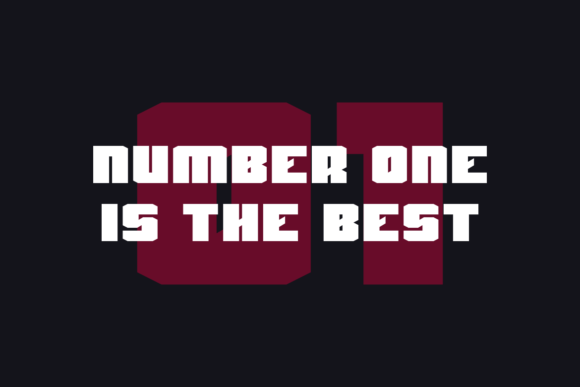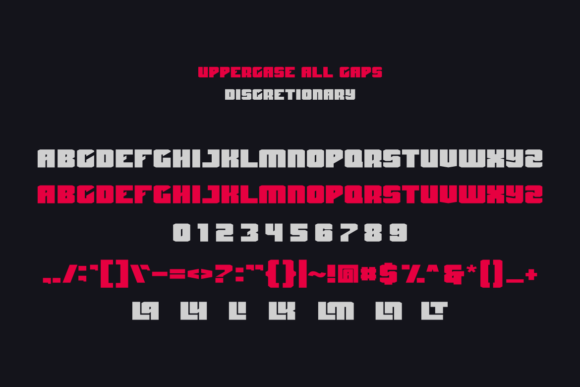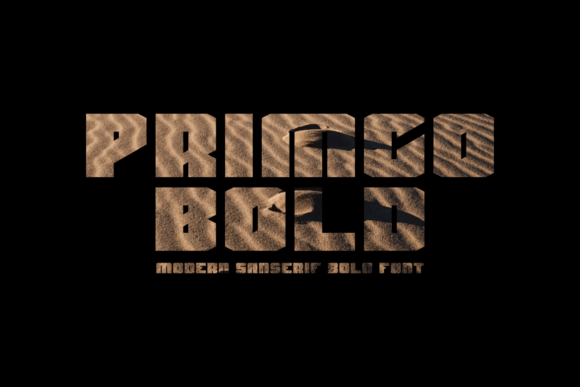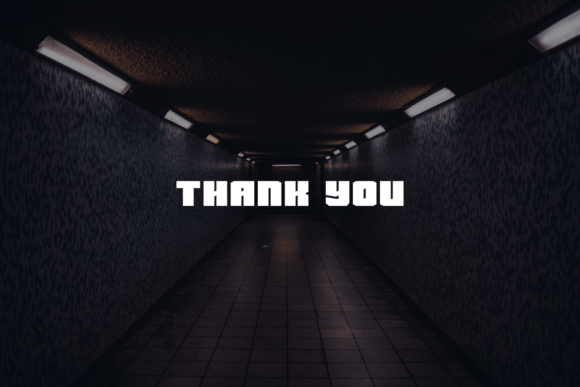
Introduction to Primco Bold Font
Imagine you’re working on a creative project, and you need to grab the attention of your audience. You want your message to stand out, to make a statement. That’s where Primco Bold Font comes in – a strong and chunky display font with big, blocky letters that’s perfect for making a bold statement.
As a designer, you’re always on the lookout for high-quality design resources that can elevate your work. And with Primco Bold Font, you’ve got a valuable tool at your fingertips. This free download is ideal for any creative project where you need to make a big impact, and with its transparent background, you can easily overlay it on any image or background.
Whether you’re designing a logo, a billboard, or a social media campaign, Primco Bold Font is a game-changer. Its solid, blocky letters are guaranteed to grab attention and make your message unforgettable. So why not give it a try and see the difference it can make in your next design project?
Key Features of Primco Bold Font
- High-quality font design with a unique, modern style, perfect for creative projects.
- Primco Bold Font features a transparent background, allowing for effortless customization and blending with any design.
- Optimized for high-resolution displays, with a resolution of 300 DPI, ensuring crisp and clear text in your design project.
- Designed to work well with a variety of design elements, making it an ideal choice for creative professionals and hobbyists alike.
- Perfect for use in digital and print media, including logos, branding, and marketing materials.
Honest Review: Primco Bold Font
I recently stumbled upon the Primco Bold Font and I must say, it’s been a game-changer for my design projects. As a designer, I’m always on the lookout for high-quality fonts that can elevate my creative work.
- ✨ High-quality design: The Primco Bold Font is incredibly well-designed, with clean lines and a professional look that’s perfect for any project.
- ✨ Transparent background: The font’s transparent background makes it easy to use in designs with complex backgrounds or textures.
- ⚠️ Limited character set: The font only includes a limited character set, which may not be suitable for projects that require a wide range of characters.
- ⚠️ Not ideal for small text: The font can be a bit too bold for small text, which may make it difficult to read.
Overall, I’m impressed with the Primco Bold Font and would definitely recommend it to fellow designers. It’s a great design resource that can add a touch of professionalism to any project. With a little creativity, you can work around its limitations and achieve amazing results.
Tips for Getting the Most Out of Primco Bold Font
To get the most out of Primco Bold Font, use it in combination with other high-quality design elements, such as images and graphics. You can also experiment with different font sizes and colors to create a unique and creative project.
Primco Bold Font is perfect for creating eye-catching headings, titles, and logos. It’s also great for designing business cards, brochures, and other marketing materials. With its free download and high-quality design, Primco Bold Font is a valuable design resource for any creative project.